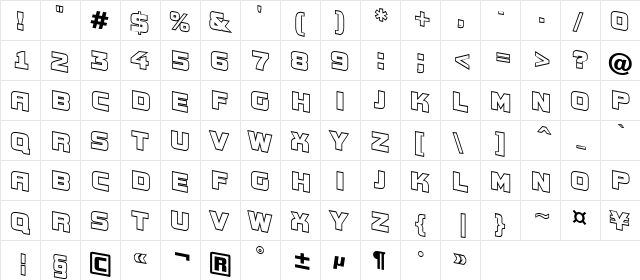
a_ConceptoTitulSpDnOtl Regular
Design Context for a_ConceptoTitulSpDnOtl Typeface
a_ConceptoTitulSpDnOtl is a composed and adaptable typeface that performs quietly and consistently across a wide range of design contexts.